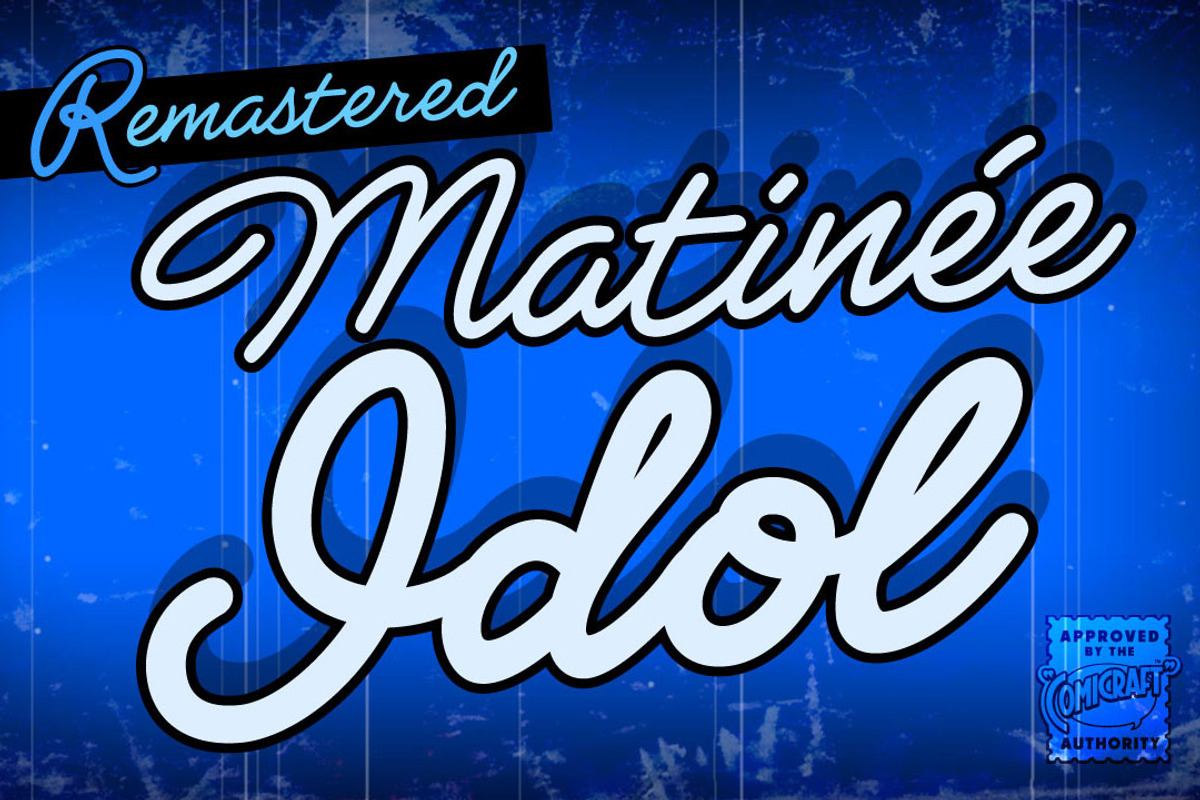
Please note that you must purchase this font for commercial use. You can download Matinée Idol – Elegant Script Font for free, strictly for personal testing purposes only. Matinée Idol is an elegant and refined script font with smooth, flowing curves and graceful letterforms. With its sophisticated design, Matinée Idol Font Free Download is perfect for wedding invitations, luxury branding, greeting cards, logos, and any project that requires a classy, handwritten aesthetic.
This font exudes beauty and elegance, making it ideal for formal events, high-end marketing materials, and custom stationery. It includes uppercase and lowercase letters, numerals, punctuation, and multilingual support, offering versatility for a wide range of creative uses.
Whether you're creating wedding invitations, branding a luxury product, or designing personalized content, Matinée Idol adds a refined, artistic touch to your typography.